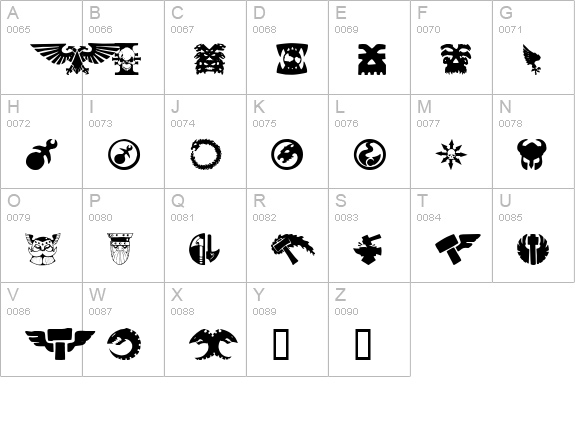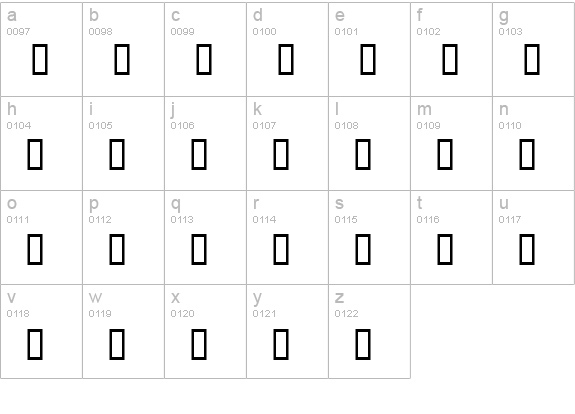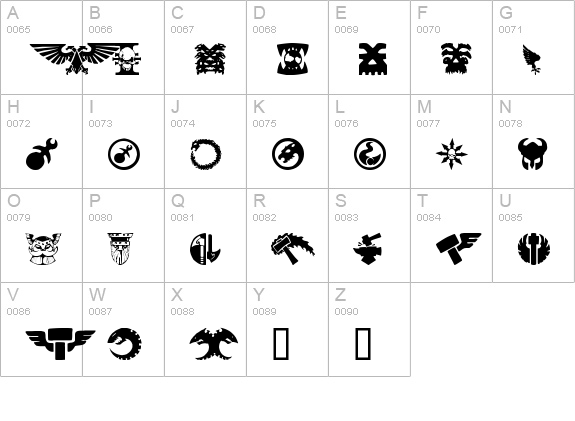
ChaoSquat Font Details
Introducing the captivating ChaoSquat font, a versatile typeface that exudes a perfect blend of modernity and creativity. Designed with a unique flair, ChaoSquat brings a dynamic and bold aesthetic to any design project. Its sharp lines and edgy angles make a powerful statement, while its sleek curves add a touch of sophistication. This striking font is ideal for a wide range of applications, from branding and advertising to editorial design and social media graphics. Whether you're looking to make a bold impact or add a touch of elegance to your work, ChaoSquat is sure to impress. What's even better is that ChaoSquat is available for free download at FontsMarket.com. So go ahead and unleash your creativity with this fantastic font, and take your designs to the next level with ChaoSquat.